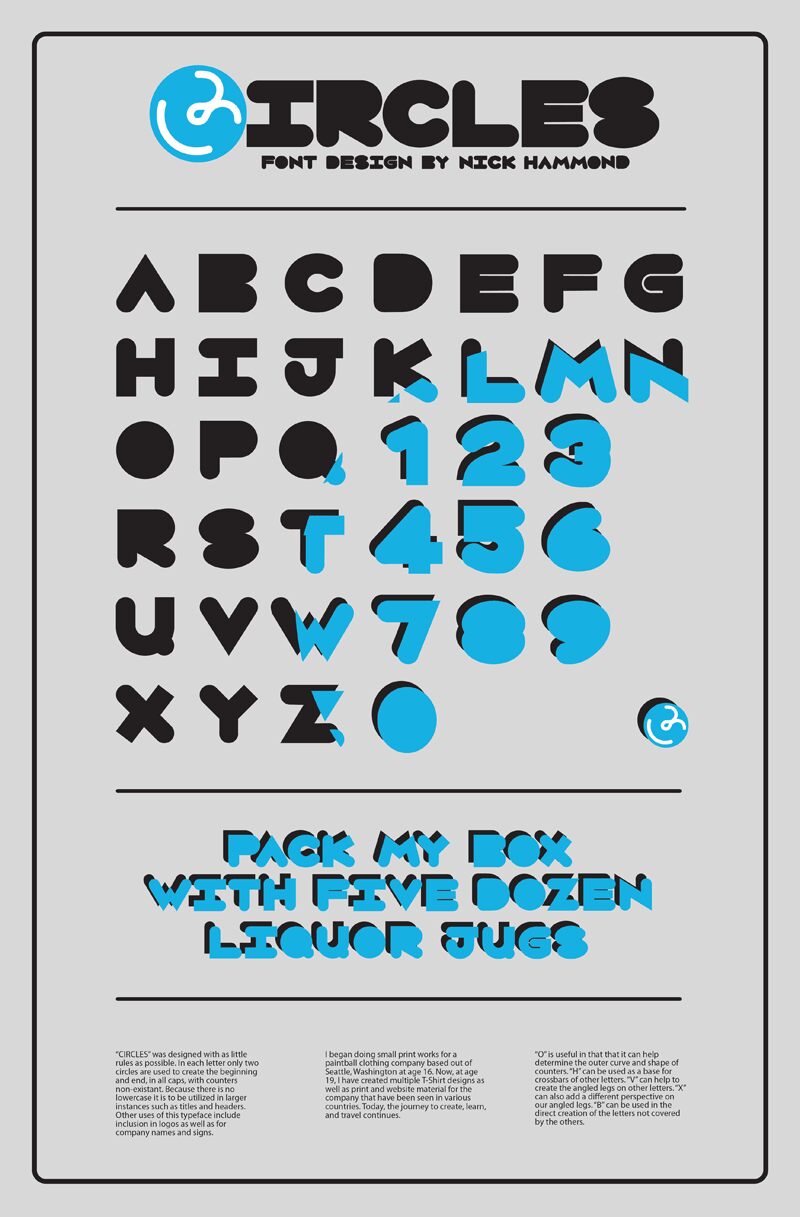
Circles by Nick Hammond Design is a free experimental display font shaped by extremely heavy forms and a rounded geometric silhouette. Broad curves and bulbous joins dominate the lettering, but sharp triangular cuts and narrow interior openings repeatedly break up the mass, producing a lively procession of circles, arches, flattened bars, and sudden angles.
Packaging is an especially convincing medium for these compact shapes, which can turn a snack label or playful product name into a bold graphic emblem and extend into event posters, music graphics, and merchandise. Soft curves and pointed interruptions connect these otherwise different commercial applications.
“Circles” was not intended for body copy.